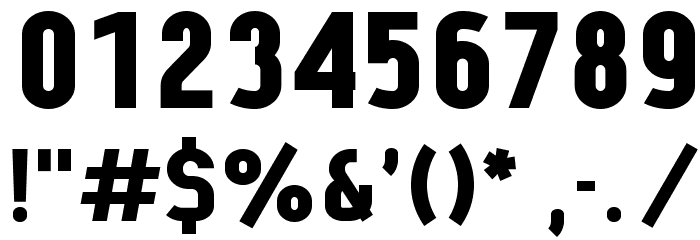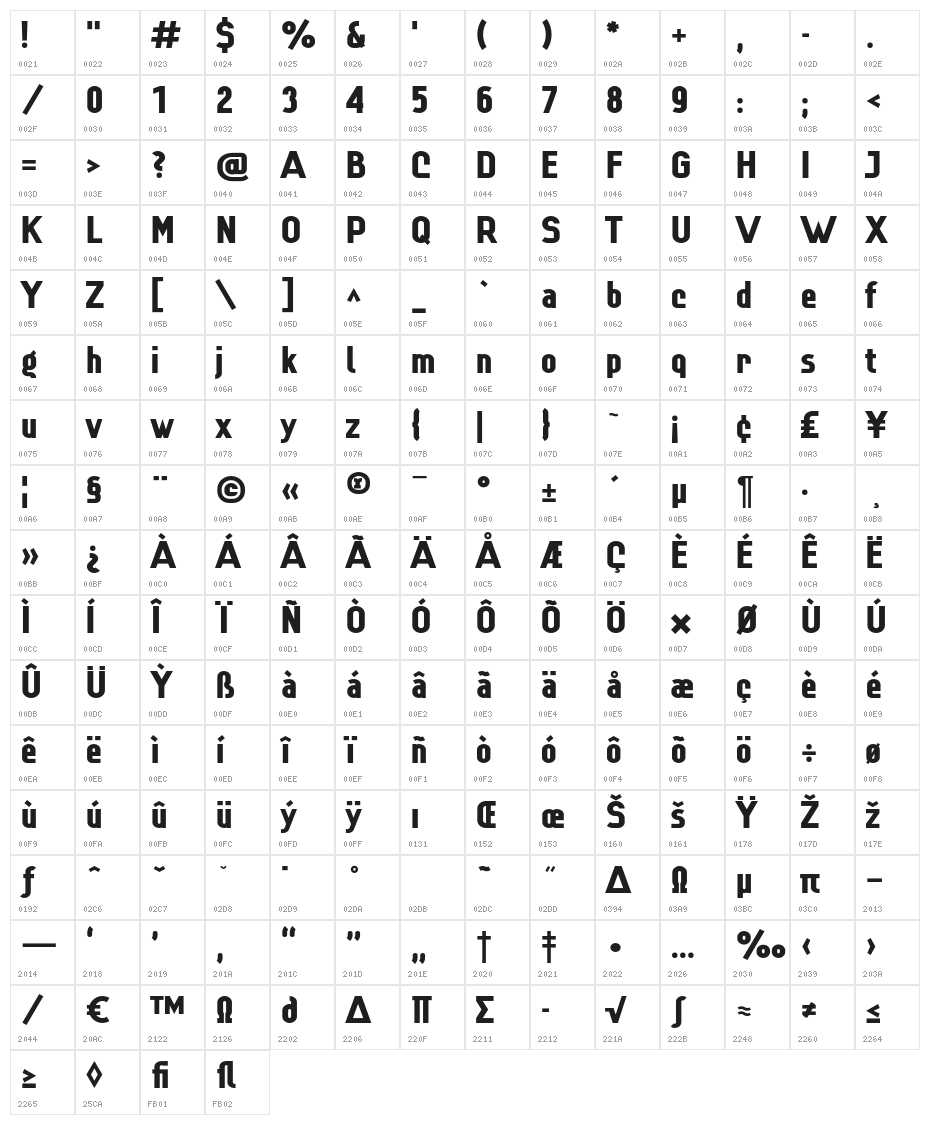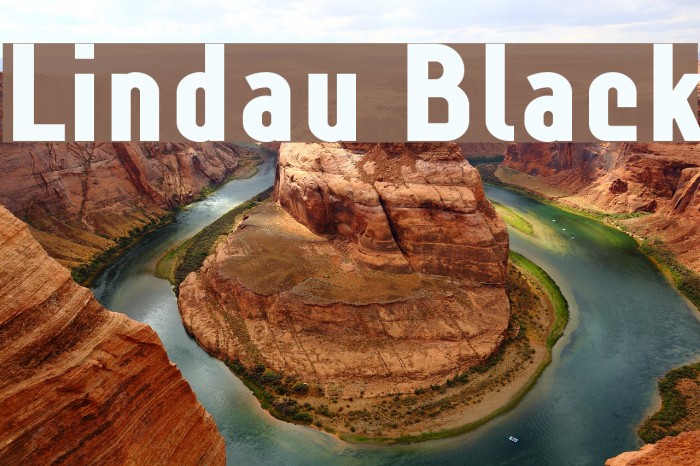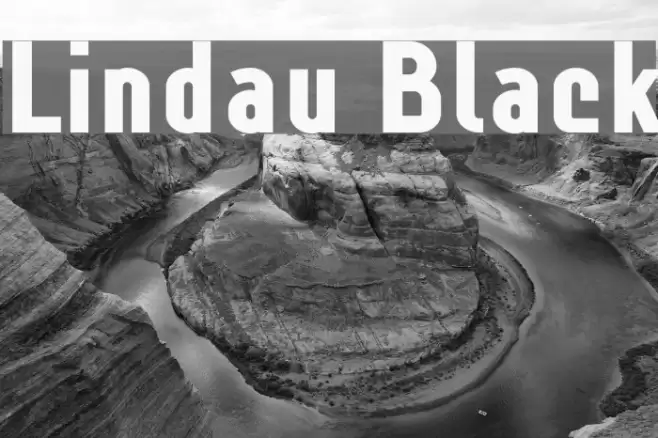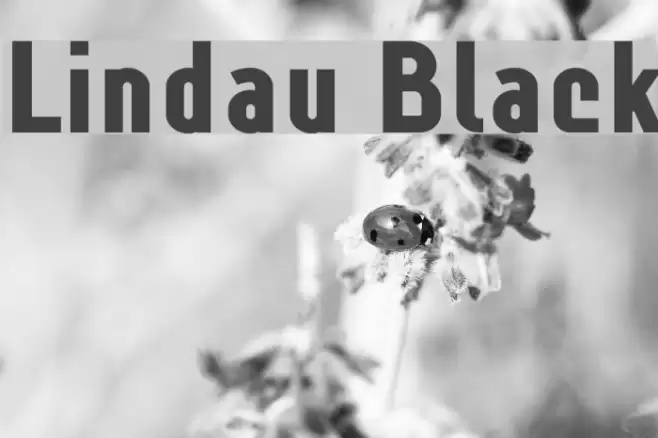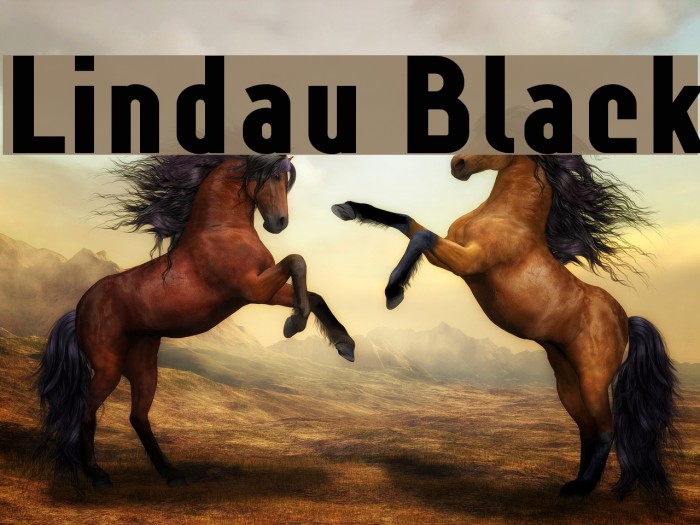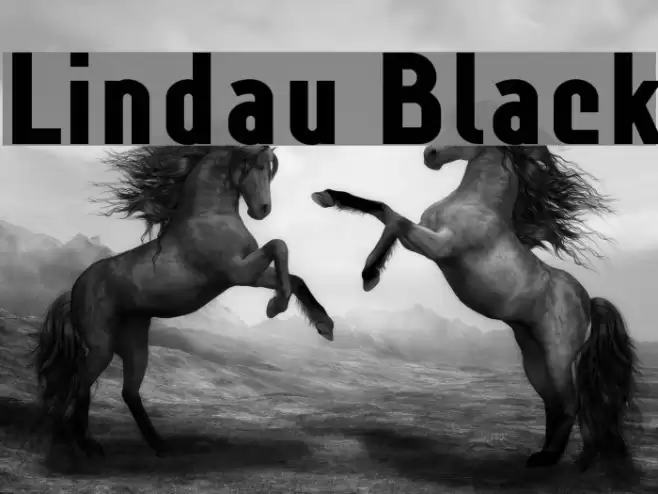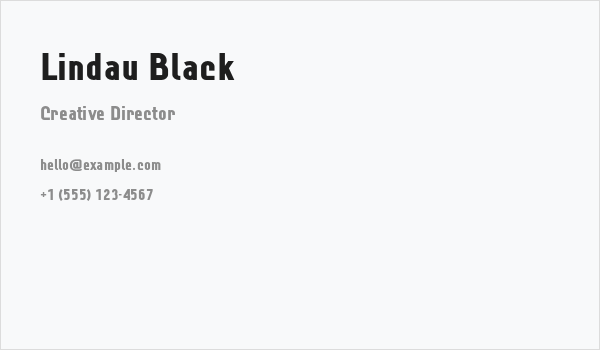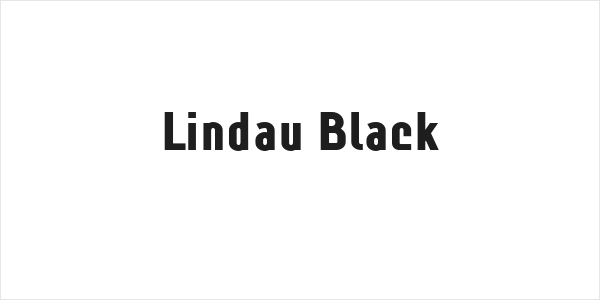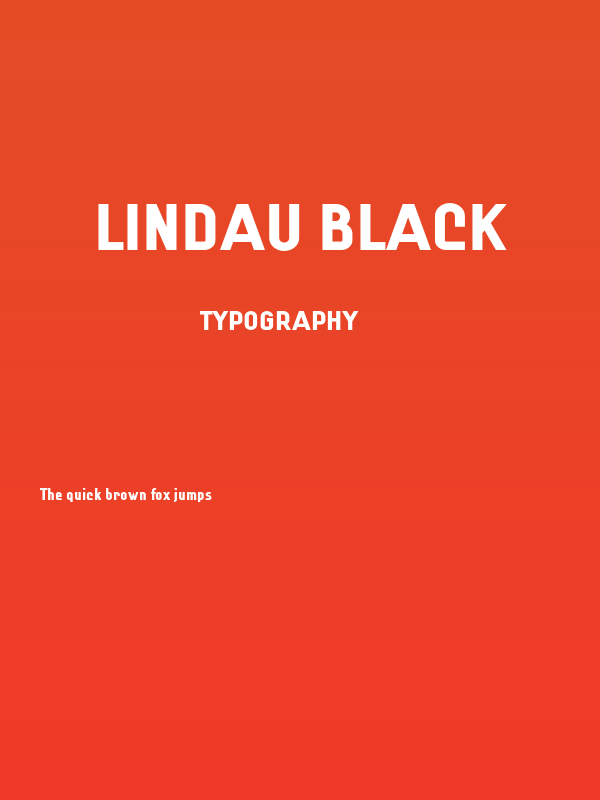
Lindau Black Font
Lindau Black Description
This font features a bold and assertive style with strong geometric shapes and clean lines. The uppercase letters are particularly striking, with a uniform height and width that create a sense of balance and stability. The lowercase letters maintain the same boldness, offering a consistent look across different text sizes. Numbers and special characters are designed with the same attention to detail, ensuring readability and visual appeal. The overall aesthetic is modern and impactful, making it suitable for a variety of design applications.